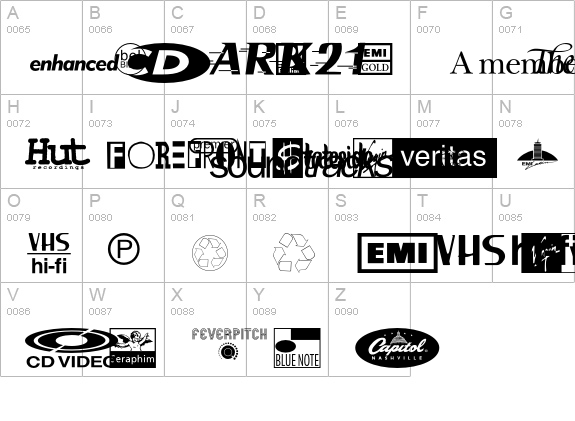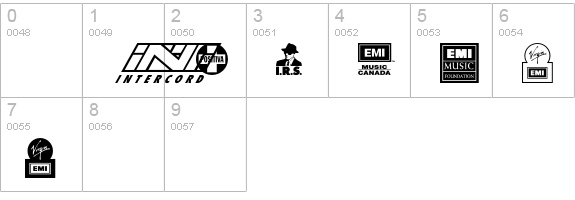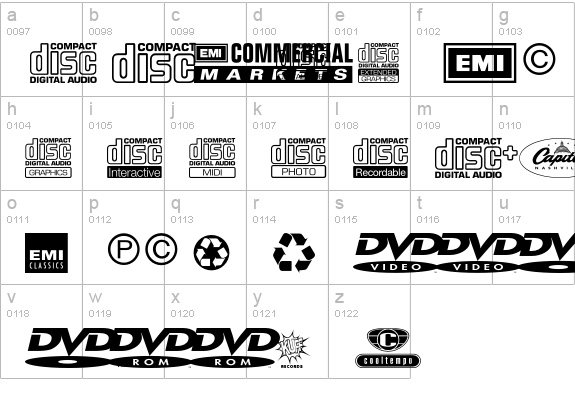
RainbowTwo Font Details
Introducing RainbowTwo, a vibrant and playful font that is sure to add a touch of joy and liveliness to any design project. With its whimsical curves and dynamic strokes, this font radiates positivity and creativity. RainbowTwo is the perfect choice for projects that demand attention and call for a modern and lively aesthetic. Whether you're designing a logo, creating eye-catching posters, or crafting memorable social media graphics, RainbowTwo will effortlessly captivate your audience. One of the best things about RainbowTwo is that it is absolutely free! That's right, this incredible font is freely available to download at FontsMarket.com. Now you can enhance your designs without having to worry about breaking the bank. Download RainbowTwo today and let your creativity shine as you explore the endless possibilities this font offers. Its versatility and boldness will ensure that your designs stand out from the crowd and leave a lasting impression. Don't miss out on this incredible opportunity to add a touch of vibrancy and excitement to your designs. Get your hands on RainbowTwo now and let your imagination run wild!